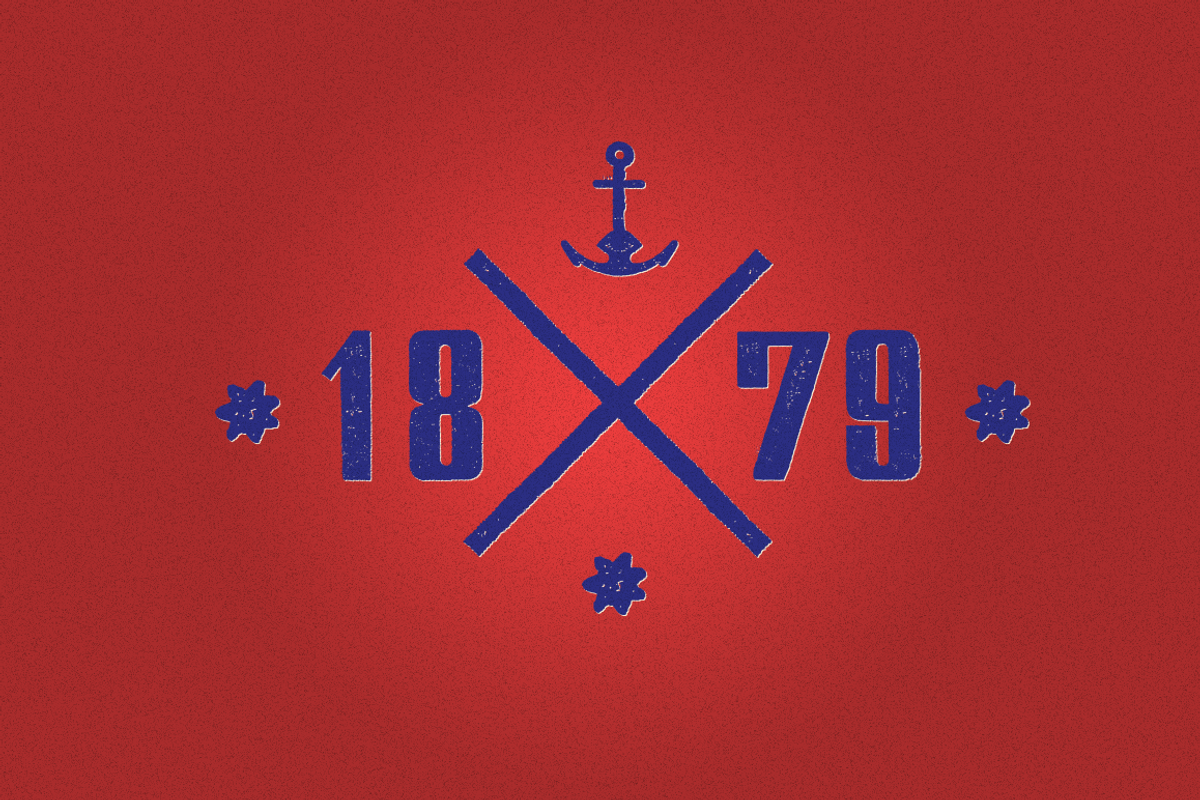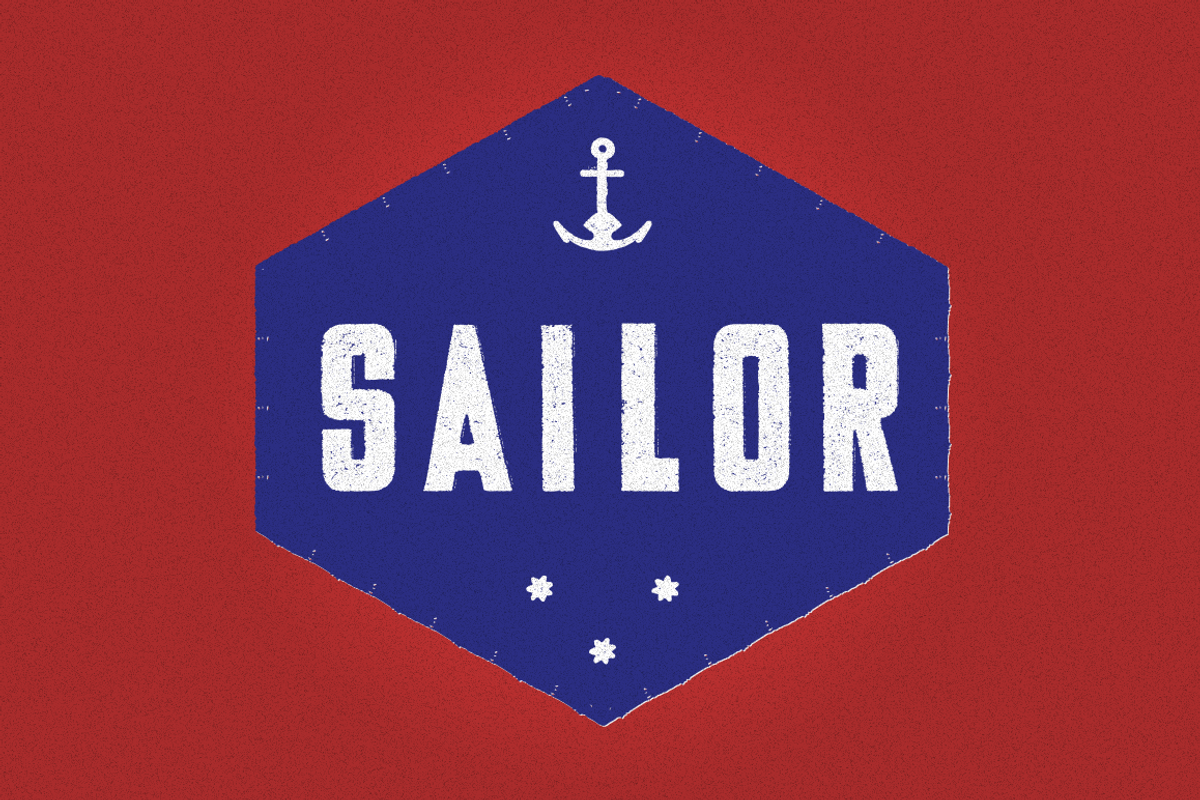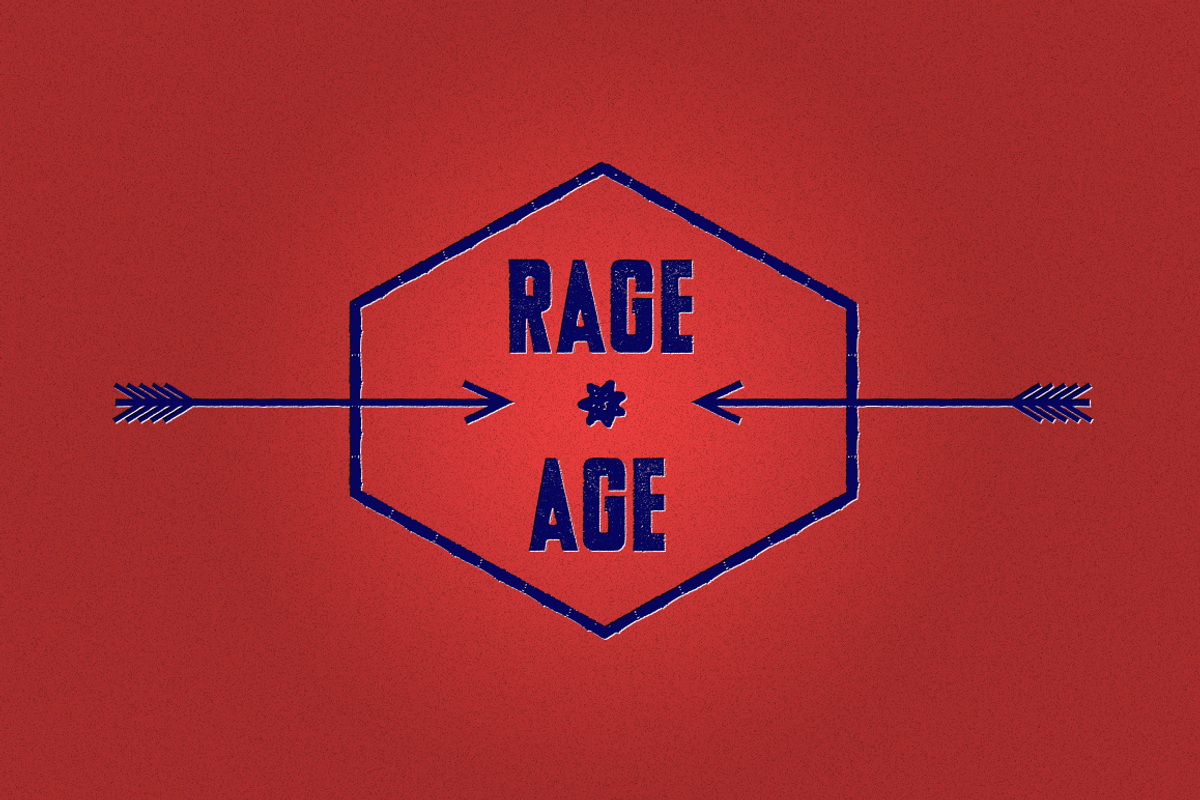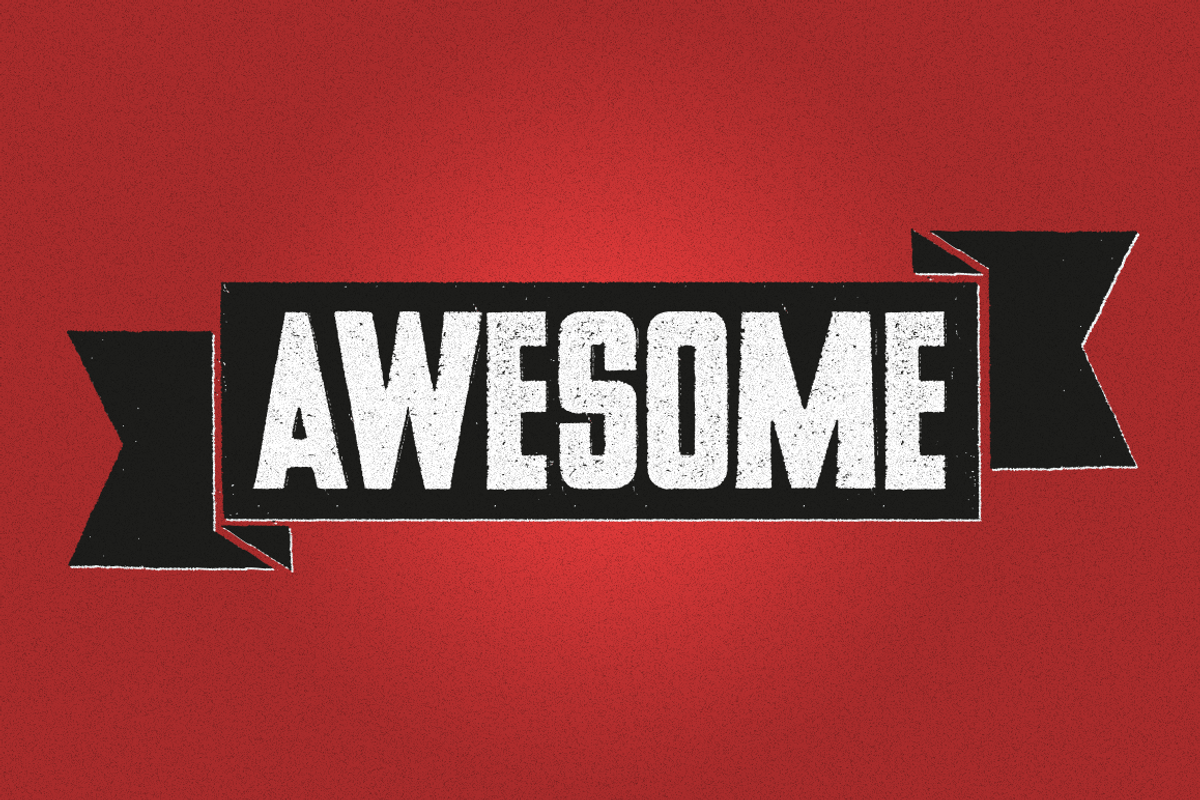
USKOK Vintage Font | -50% off by Pan Cabaj is a font selected for branding, posters, packaging, typography.
USKOK Vintage Font | -50% off by Pan Cabaj fits naturally into Branding, posters, packaging, typography.